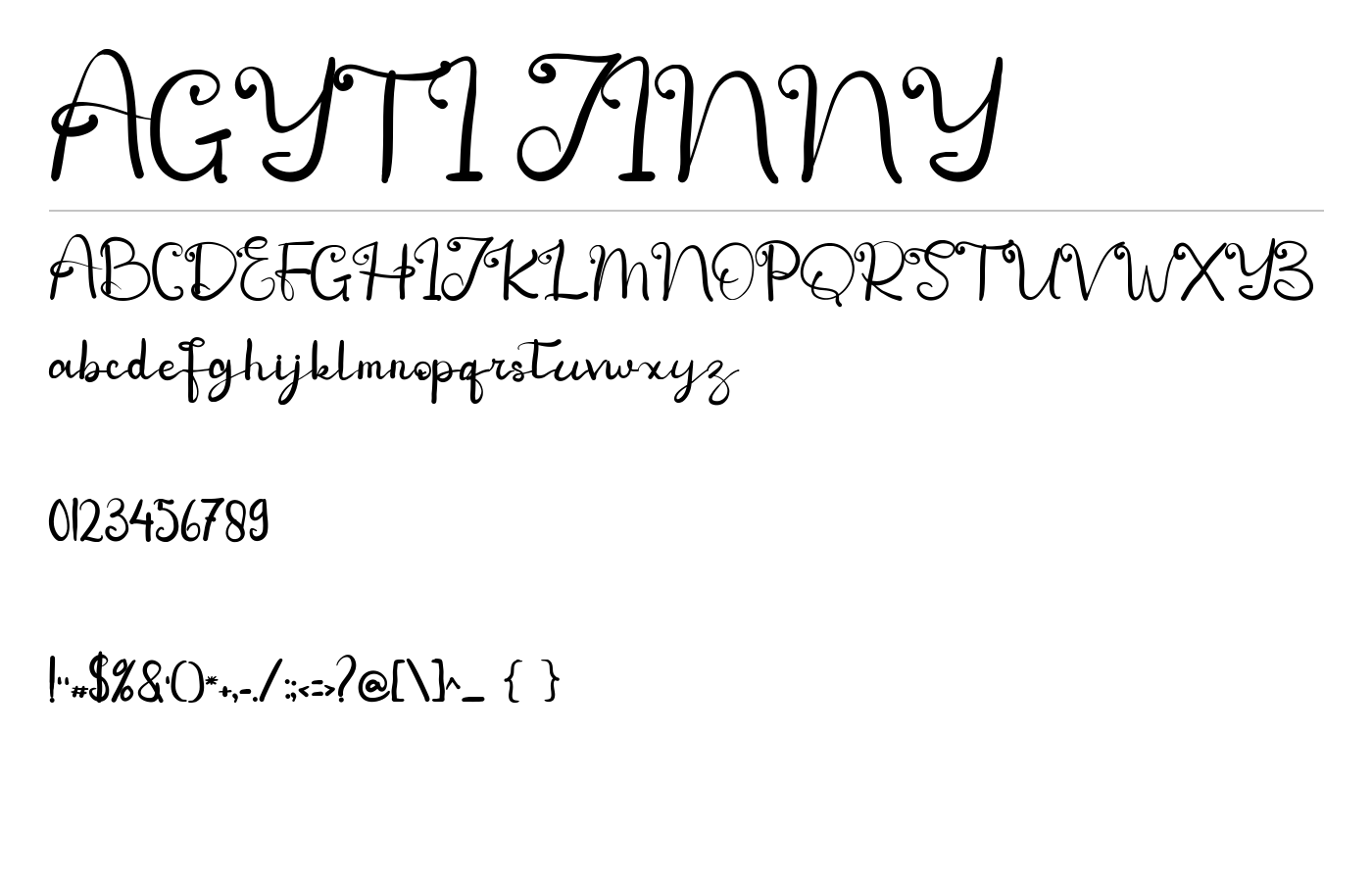
AGYTI JINNY is a playful and decorative script font featuring whimsical curls and flourishes that add a charming, hand-drawn feel. Its light weight and tall, narrow letterforms make it ideal for creative and informal uses, such as invitations, greeting cards, or branding that aims for a quirky, artistic vibe. This font works best in display settings where its unique character can shine and add personality.
AGYTI JINNY Font